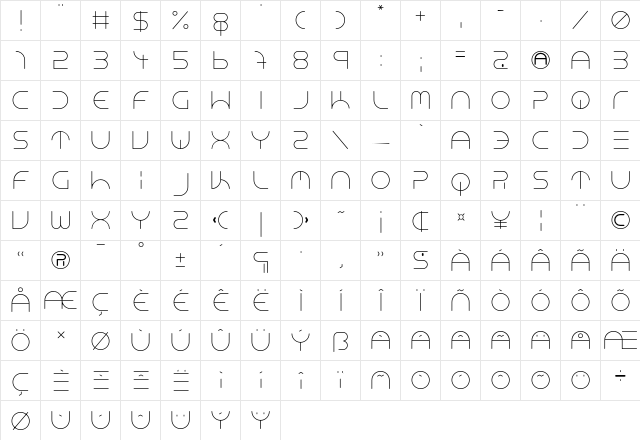
NEON CLUB MUSIC Light
Design Context for NEON CLUB MUSIC Typeface
NEON CLUB MUSIC channels digital-age aesthetics through its sharp, structured letterforms — ideal for brands that want to signal innovation. Its slender proportions lend an understated elegance to any composition.
Pro Tip: Try NEON CLUB MUSIC with generous letter-spacing in UI labels and navigation — the geometric forms benefit from room to breathe.